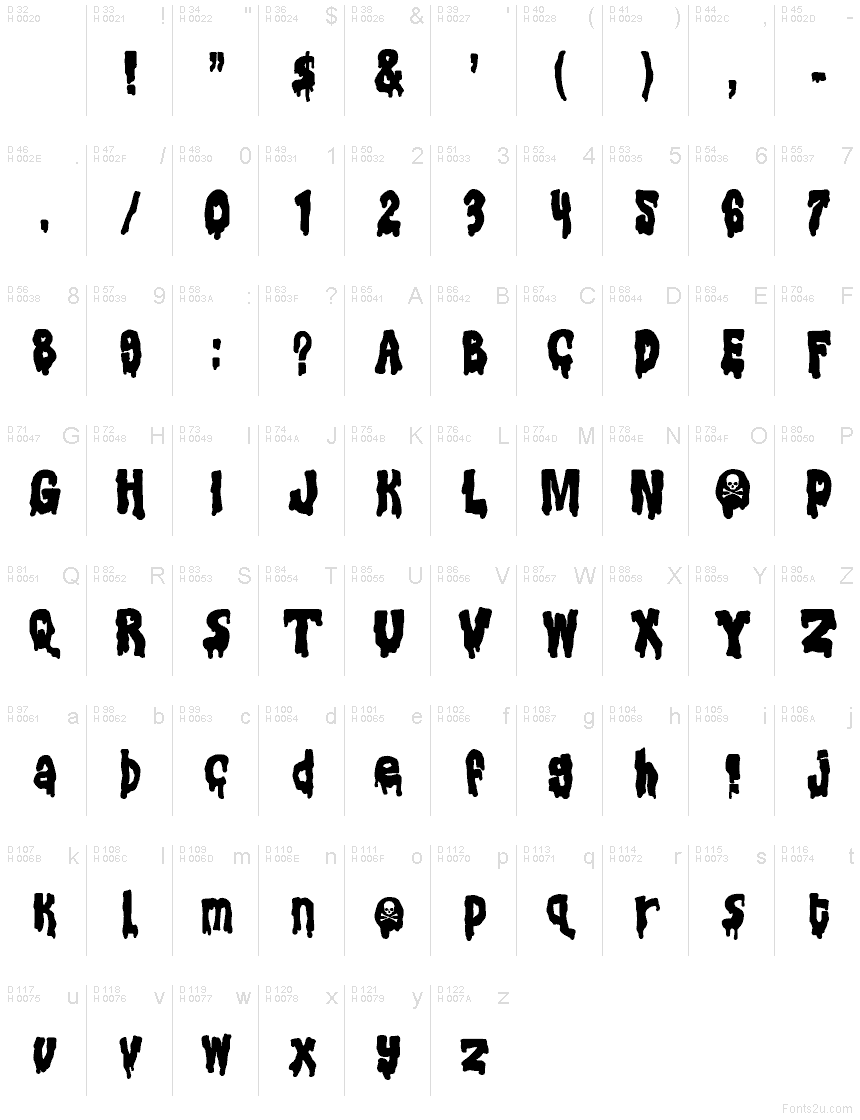
Corrosive Regular
Corrosive font is a bold, scary display font designed by Sierra Stephens. With grunge, distressed, and eerie characteristics, it brings in an edgy gothic influence for eye-catching results. Its daring rebellious aura makes it perfect for projects that stand out from the ordinary.
Use Corrosive free font in album cover designs, book covers, posters, flyers, stickers and digital marketing campaigns. Movie titles and opening/ending (credit) scenes can also be outstanding with Corrosive.